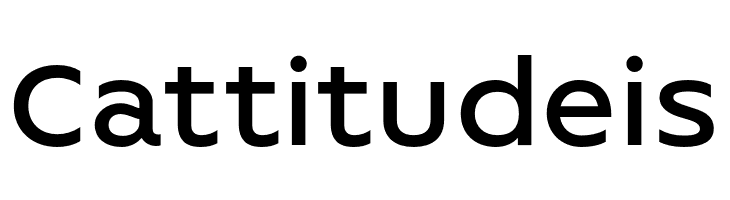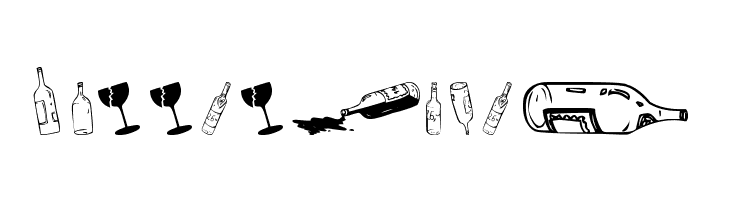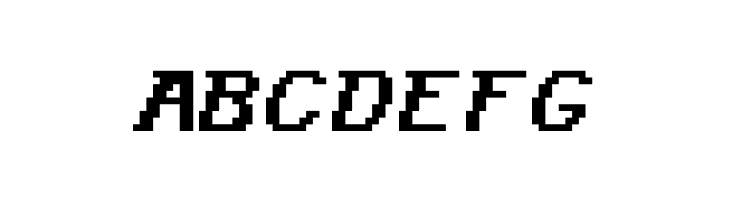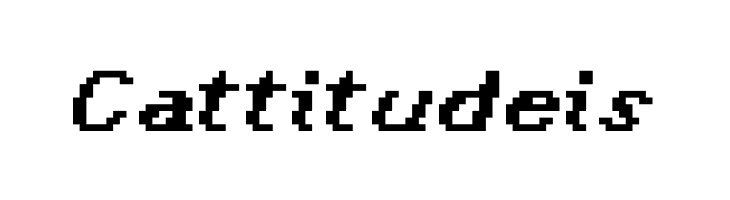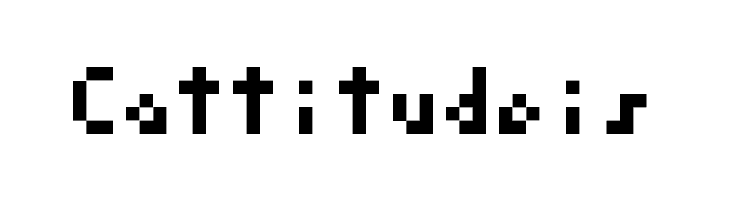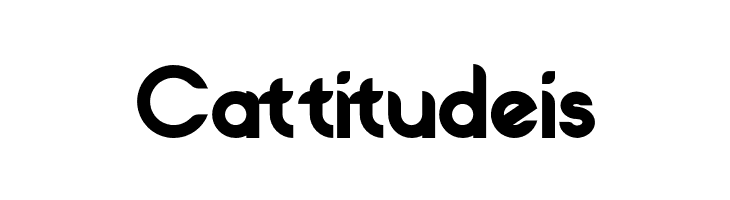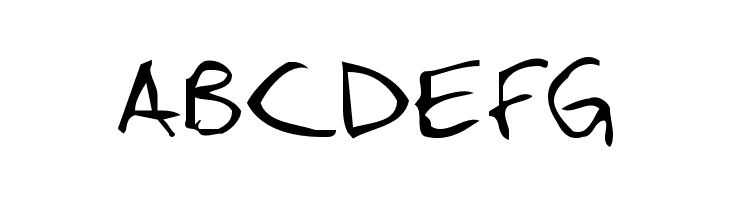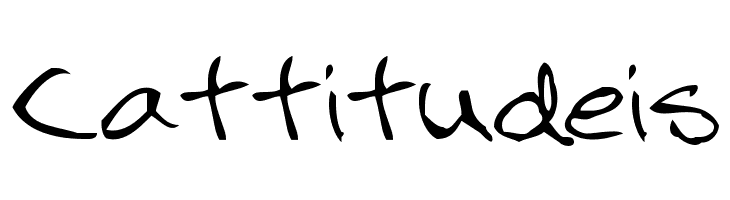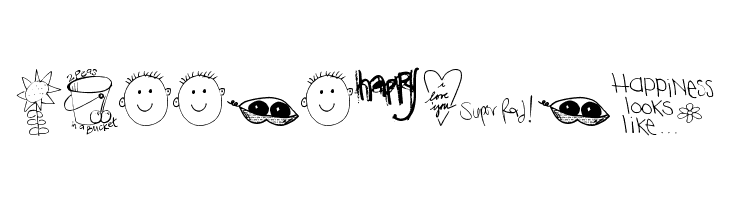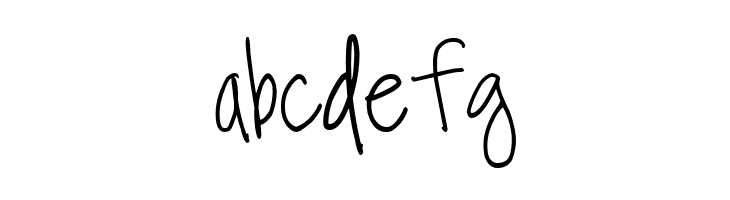
• 26alco
A decorative font with characters illustrated as various alcoholic beverages.
• 2a
A bold, geometric font with modern and edgy characteristics.
• 2Credits
A pixelated, retro-style font inspired by early digital displays.
• 2Dumb
A playful, informal handwritten font with irregular strokes and a casual appearance.
• 2MASSJ1808-Normal
A modern, geometric sans-serif font with clean lines and uniform stroke width.
• 2Peas GG Mix
A whimsical, eclectic font with playful, decorative characters.
• 2Peas GGs Love Me
A playful and whimsical collection of hand-drawn doodles and handwritten elements.
• 2Peas old type
• 2peas scrapbook
A playful, handwritten-style font with a casual and whimsical feel.
• 3 by 5 Regular
A pixelated, blocky font inspired by retro digital displays.